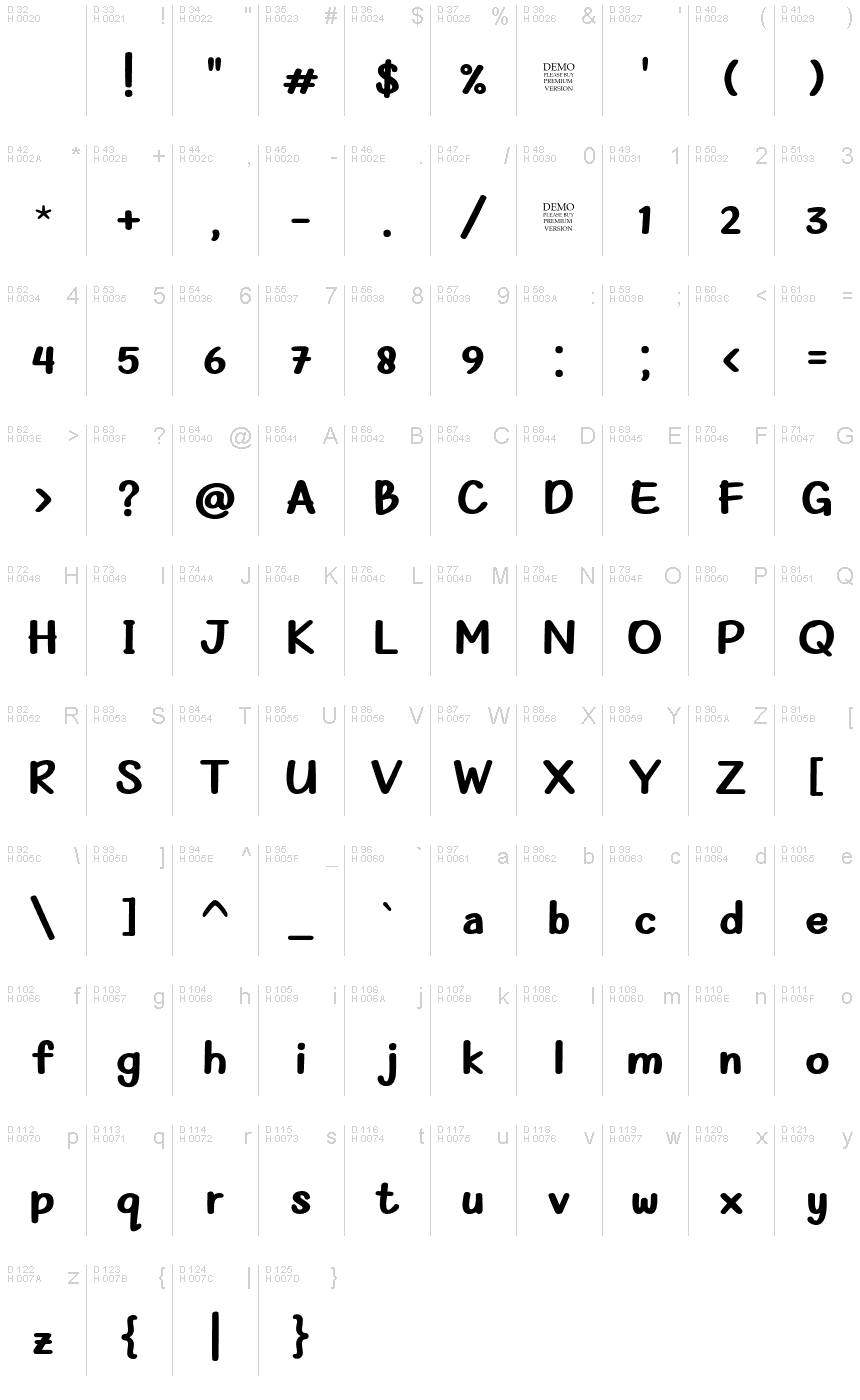
My Olivin Bold
My Olivin font is a cool brush typeface designed by Alifinart Studio.
My Olivin by Alifinart
My Olivin is a sweet and friendly handwritten font. Its natural and unique style makes it incredibly fitting to a large pool of designs.